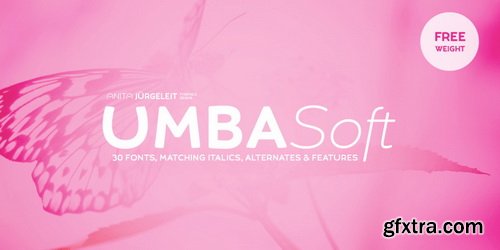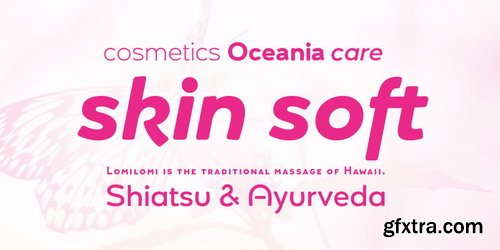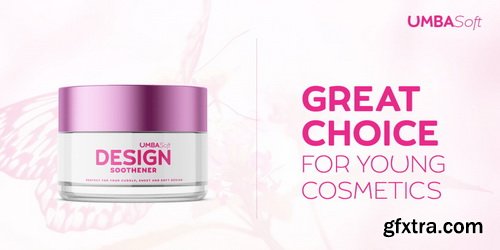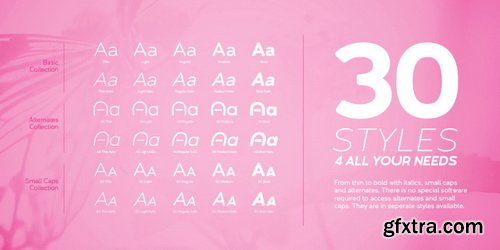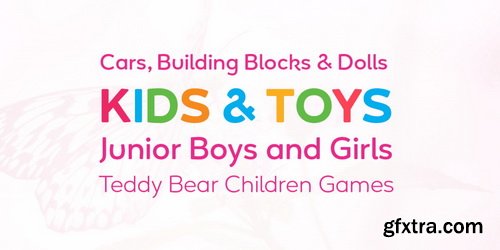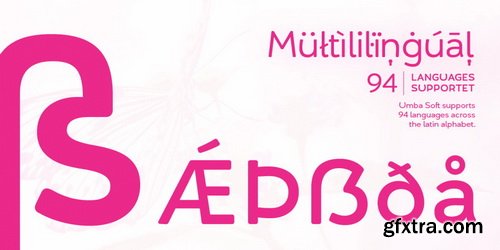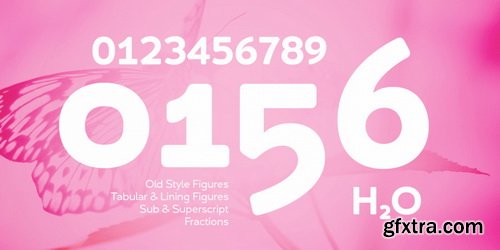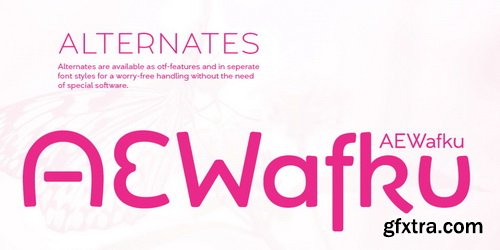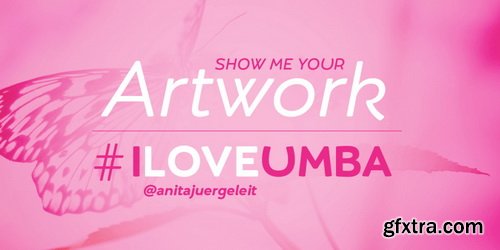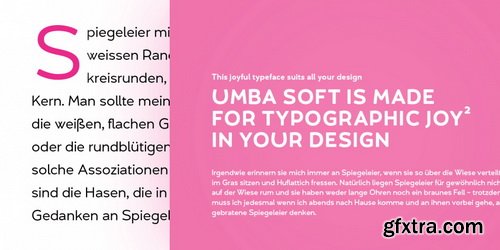
UMBA Soft is a mellow sans serif typeface designed by Anita Jürgeleit. It soothes your design and helps to create to balance your visualization. Do you need a type for young cosmetics or other youth-related products? Take a look at Umba Sans! Your creation should be soft and gentle and you need a suitable font? Something that should be cuddly, sweet and soft but a serious type family that covers all your concerns? Umba Soft is your match! Your typographic composition will improve with your new favourite font.